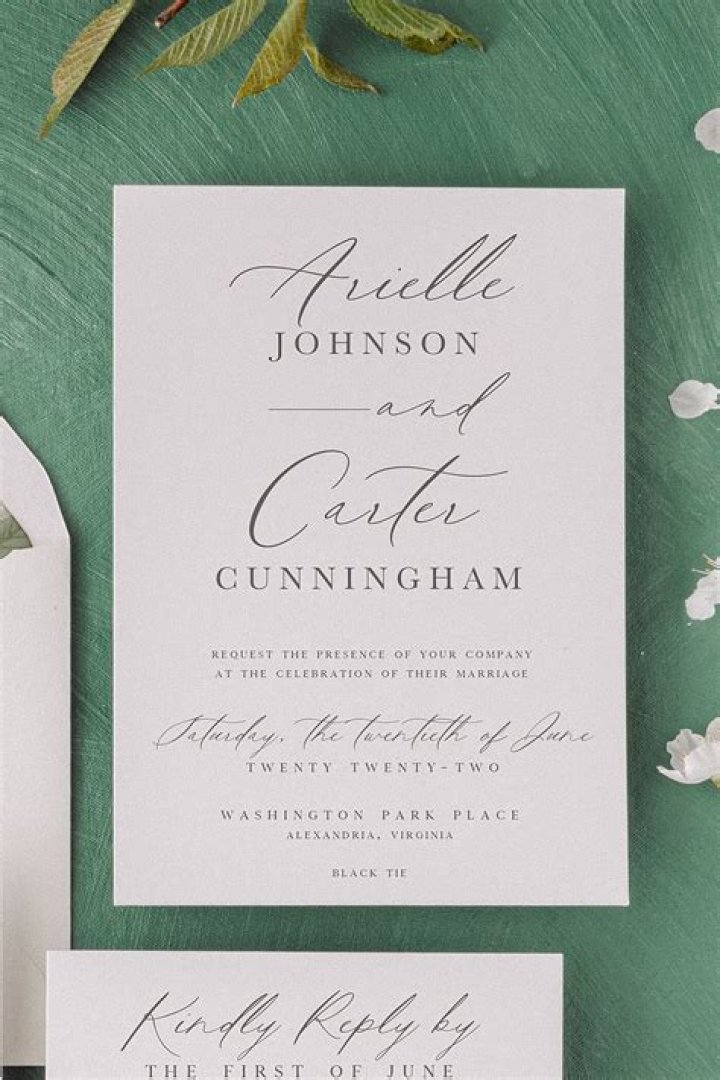
What font is used in wedding invitations?
Script and Caligraphy Fonts Script and calligraphy are the most popular fonts used for wedding invitations. They’re perfect fonts for wedding initials as well. as they’re both stylish and romantic.
Which font is good for invitations?
Classic Elegance Cason, Bodoni and Baskerville are elegant fonts that contain serifs — those small flourishes or extra strokes on the ends of the main strokes of a letter. Snell Roundhand is a longtime favorite script of typographers that is also easy to read, making it ideal for a formal invitation.
How do I choose a font for my wedding?
There are a few things to keep in mind when choosing fonts for your wedding stationery, but overall the process doesn’t have to be difficult….Font Selection Tips
- It All Starts With A Theme.
- Use A Mix of Fonts.
- Consider Contrast.
- Fonts Can Do Double Duty.
- Think About Your Guests.
How many fonts should be on an invitation?
When it comes to fonts, less is more. A good rule of thumb is to limit your design to two or three typefaces. This will keep your design clean and consistent. Avoid using fonts that look too similar.
What is the prettiest script font?
What are the best script fonts?
- Broadley. A bold hand-drawn script with a touch of vintage, designed by Henry Juanda in 2021.
- Monarda. A funky, energetic retro script released in 2019, designed by Terrance Weinzierl for Monotype.
- Raksana.
- Hope Sans.
- Billie Sight.
- Youth Line.
- Palmer Lake.
- With You.